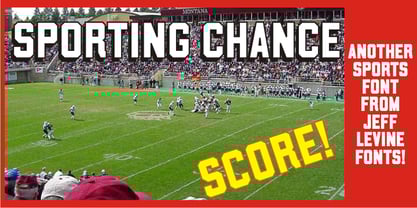
Sporting Chance JNL Font
Sporting Chance JNL Font is perfect for various design applications including sports team merchandising, athletic competition branding, sports bar signage, fitness center materials, competitive league logos, sports equipment packaging, athletic event promotions, sports magazine headers, recreational sports programs, and competitive gaming tournament graphics. This dynamic typeface excels in projects requiring athletic energy and competitive spirit that captures the excitement, determination, and victory-driven atmosphere of sports competition and athletic achievement.
What makes Sporting Chance JNL Font so exciting is its powerful embodiment of competitive spirit and athletic determination through letterforms that suggest motion, speed, and the relentless pursuit of victory. The font features dynamic angles that evoke athletic movement, bold proportions that communicate strength and confidence, and energetic character variations that mirror the intensity of competitive sports. Its distinctive athletic character and competitive energy make it perfect for sports brands seeking to communicate excellence, team spirit, and the unwavering determination that defines championship-level performance.
Sporting Chance JNL Font family includes multiple athletic weights and competitive variations that enhance its versatility for different sports applications. Each style maintains the font's signature dynamic character while providing options for various athletic design approaches. The family also features sports-themed decorative elements, competitive symbols, and victory-inspired ornaments that can be combined with the letterforms to create cohesive athletic achievement design systems.
Whether you're developing sports brands, athletic competitions, or fitness communications, Sporting Chance JNL Font Free Download provides dynamic typography that energizes audiences and celebrates the competitive spirit that drives athletic excellence. This typeface transforms ordinary communications into motivating statements that inspire peak performance and championship mindset. The font's competitive appeal makes it particularly effective for sports organizations, fitness brands, and athletic equipment companies targeting athletes and sports enthusiasts who live for competition and victory.
Sporting Chance JNL Font stands out by delivering authentic athletic energy that feels genuinely connected to competitive sports culture rather than artificial sporting themes. Its carefully designed dynamic proportions and energetic details ensure that designs feel authentically connected to athletic achievement and competitive excellence. From sports team branding to athletic event promotions, this font provides designers with tools to create communications that celebrate competitive spirit and inspire athletic achievement through powerful, victory-driven typography that captures the essence of sporting excellence.